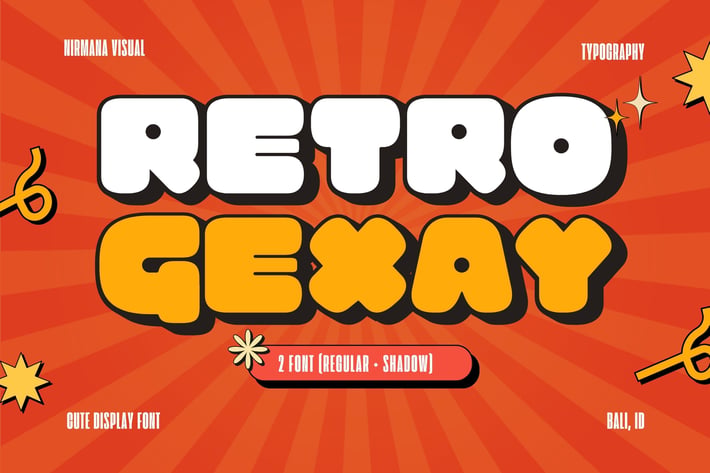
Retro Gexay - Cute Font
Retro Gexay
Retro Gexay offers beautiful typographic harmony for a diversity of design projects, including logos & branding, social media posts, advertisements & product designs.